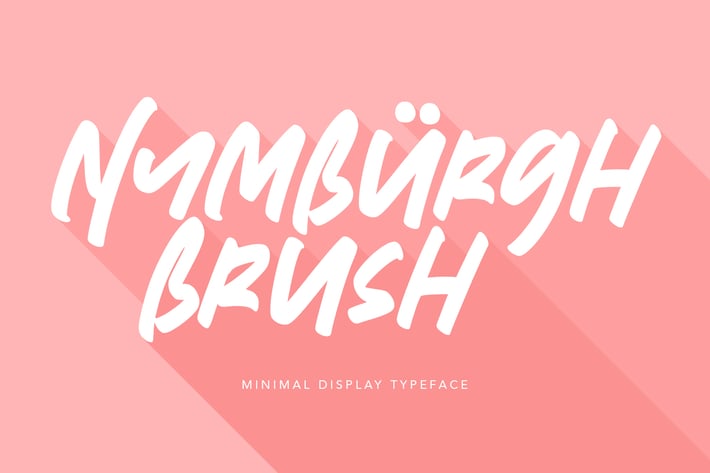
Nymburgh Brush Minimal Display Typeface
Give your designs an authentic handcrafted feel. “ Nymburgh” is perfectly suited to signature, stationery, logo, typography quotes, magazine or book cover, website header, clothing, branding, packaging design and more.